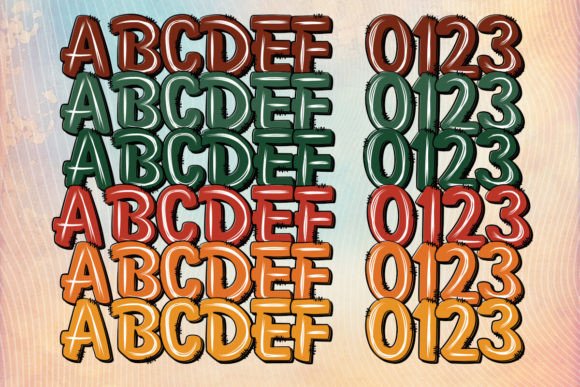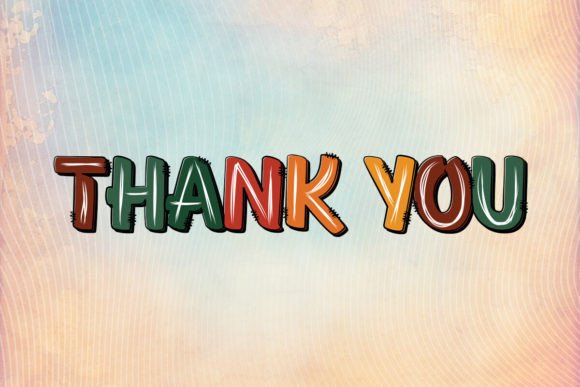
Welcome the Magic of Autumn with Hello Autumn Font
As you sit amidst the fading light of summer, the crisp breeze whispers secrets of the enchanting seasons to come. The smell of pumpkin spice and fallen leaves fills the air, and you can’t help but feel the excitement of creating something new and special. This is the moment when the Hello Autumn Font comes alive, weaving a spell of wonder and magic in your designs.
With its six unique styles and pleasing hues, Hello Autumn Font is the perfect companion for designers looking to capture the essence of autumn, Thanksgiving, and Christmas. Whether you’re creating spooky Halloween specters or cozy winter scenes, this font is sure to bring a touch of elegance and sophistication to your artistic expressions.
As a designer, you understand the importance of versatility and style in your craft. Hello Autumn Font delivers, offering a seamless blend of modern trends and classic elegance that will leave your audience in awe.
Hello Autumn Font Key Features
- Unique Characteristics: This font features intricate, hand-drawn illustrations of autumnal elements, such as leaves, acorns, and pumpkins, adding a whimsical touch to designs.
- Font Weight: The font offers various weights, from Light to Bold, allowing designers to achieve the perfect balance of elegance and legibility.
Hello Autumn Font Review
I recently had the chance to work with the Hello Autumn font, and I must say, it’s a beautiful and charming addition to any design project. ✨ One of the things I love about this font is its unique blend of modern and traditional elements. The flowing curves and subtle texture give it a warm, inviting feel that’s perfect for autumn-themed designs or anything that needs a cozy touch.
- ✨ Unique blend of modern and traditional elements
- ✨ Perfect for autumn-themed designs or anything that needs a cozy touch
- ✨ Beautiful and charming
However, I do have a few reservations about the font. ⚠️ One of the main limitations is its limited character set, which may make it less suitable for projects that require a wide range of characters. Additionally, the font’s texture can sometimes make it difficult to read, especially in smaller sizes.
- ⚠️ Limited character set
- ⚠️ Texture can be difficult to read in smaller sizes
Overall, I think the Hello Autumn font is a great choice for designers who are looking to add a touch of warmth and coziness to their projects. While it may have some limitations, its unique charm and beautiful design make it a worthwhile addition to any font collection.
Use the Hello Autumn Font for seasonal designs, invitations, and promotional materials.
– Pair the font with warm, earthy colors for a cozy autumn feel.
– Use the font for headings or titles to create a sense of depth and contrast.
– Experiment with different font sizes and styles to add visual interest.
Pacifico is a beautiful, elegant script font that is perfect for designs that require a touch of sophistication and warmth. It is ideal for wedding invitations, greeting cards, and other special occasions. Compared to Hello Autumn Font, Pacifico has a more refined and polished look, making it suitable for more formal designs.
Great Vibes is a fun and lively script font that is great for designs that need a playful and energetic feel. It is perfect for social media graphics, advertisements, and other marketing materials. Compared to Hello Autumn Font, Great Vibes has a more carefree and spontaneous vibe, making it suitable for designs that require a youthful and dynamic feel.
Carolyna Pro is a modern and elegant script font that is perfect for designs that require a touch of luxury and sophistication. It is ideal for high-end branding, packaging, and other premium designs. Compared to Hello Autumn Font, Carolyna Pro has a more refined and polished look, making it suitable for designs that require a high-end feel.